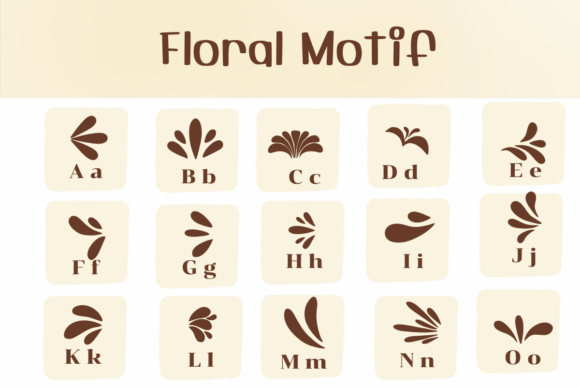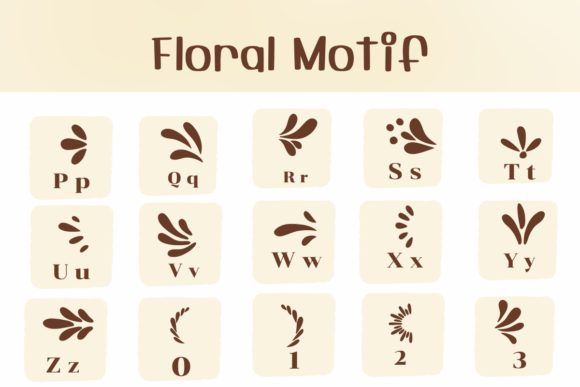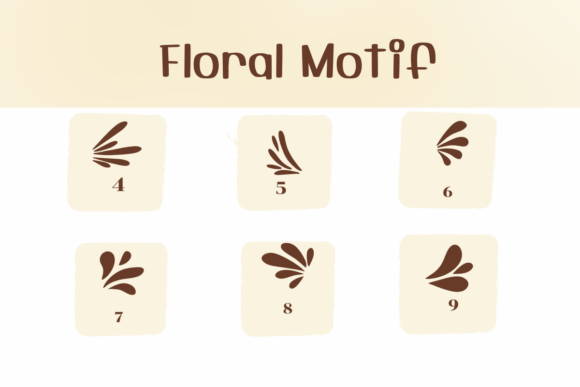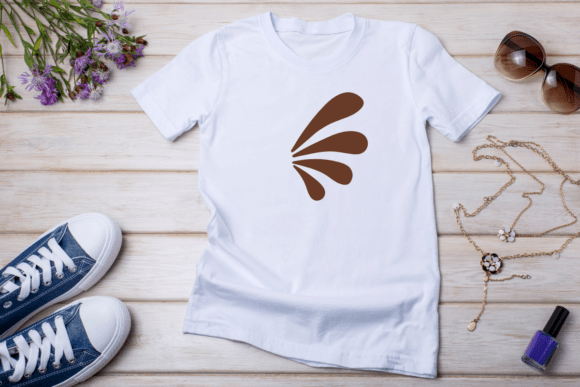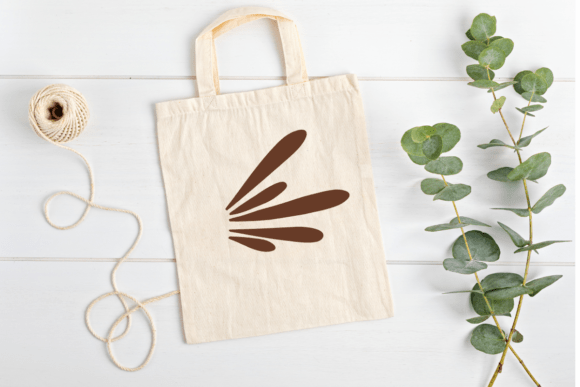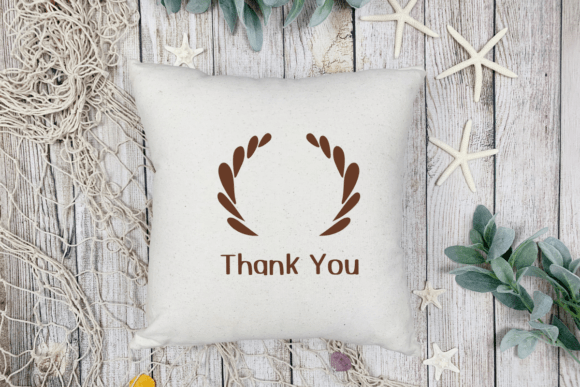
Introduction to Floral Motif Font
Floral Motif is a beautiful dingbat font filled with elegant, abstract floral shapes.
Each glyph showcases a unique petal or ornamental flourish, perfect for enhancing stationery, logos, packaging, scrapbooks, and branding with a natural, artistic touch Whether you’re designing wedding invites or decorative borders, these floral accents offer a timeless botanical flair.
Key Features of Floral Motif Font
Why Choose Floral Motif Font?
Floral Motif Font offers exceptional quality and versatility, making it a valuable addition to your design toolkit. Whether you’re creating for personal projects or commercial use, Floral Motif Font delivers professional results.